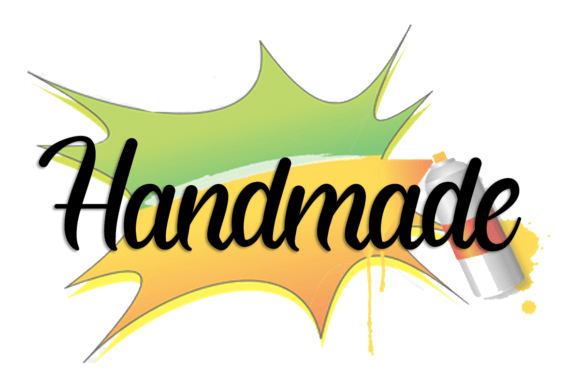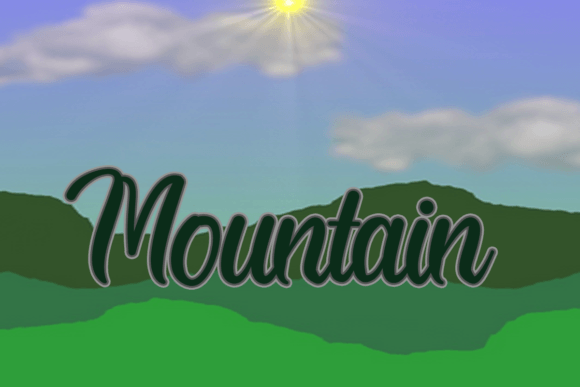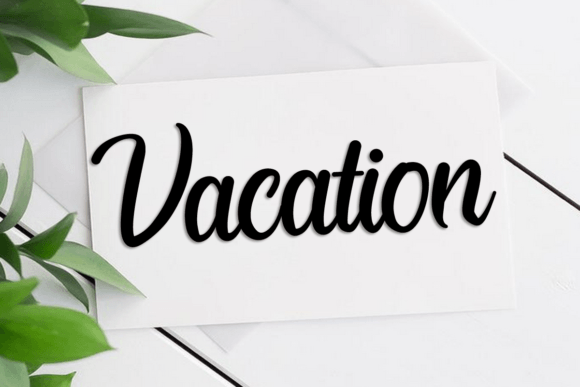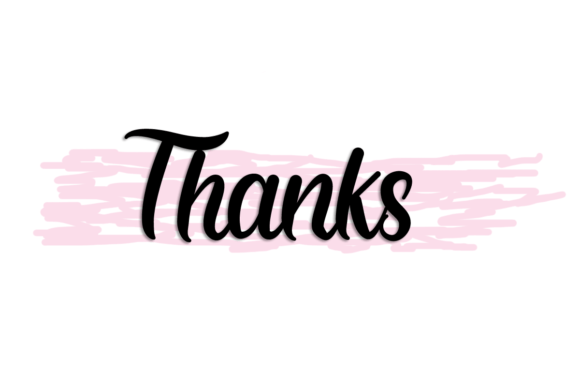
The Elusive Perfect Font: My Journey with Ending Font
I’ll never forget the design project that had me on the hunt for the perfect font. I was working on a branding project for a luxury client, and I needed a font that exuded elegance and sophistication. I scoured the internet, tried out countless fonts, but nothing seemed quite right. That was until I stumbled upon Ending Font. ✨
An Honest Review of Ending Font
Ending Font is a trendy handwritten font with a contemporary atmosphere and impeccable form, inspired by timeless classic calligraphy. Here’s what I love about it:
- ✨ Elegant and refined, perfect for luxury brands or high-end designs
- ✅ Extensive character set, including support for multiple languages
- ✅ OpenType features, including stylistic alternates and glyphs
Of course, no font is perfect, and Ending Font has a few quirks:
- ⚠️ Some users may find the font a bit too refined or formal for certain projects
- 🤔 Limited availability of certain glyphs or special characters
According to the font’s creator, Ending Font was inspired by the timeless elegance of classic calligraphy. The designer wanted to create a font that would bring a touch of sophistication to any design project, while still feeling modern and fresh. The result is a font that is both refined and versatile, perfect for a wide range of design applications.
| What is Ending Font? | Ending Font is a trendy handwritten font with a contemporary atmosphere and impeccable form, inspired by timeless classic calligraphy. |
| Is Ending Font suitable for body text? | While Ending Font is highly legible, it may be better suited for headings or titles due to its refined and elegant nature. |
| Does Ending Font support multiple languages? | Yes, Ending Font has an extensive character set, including support for multiple languages. |